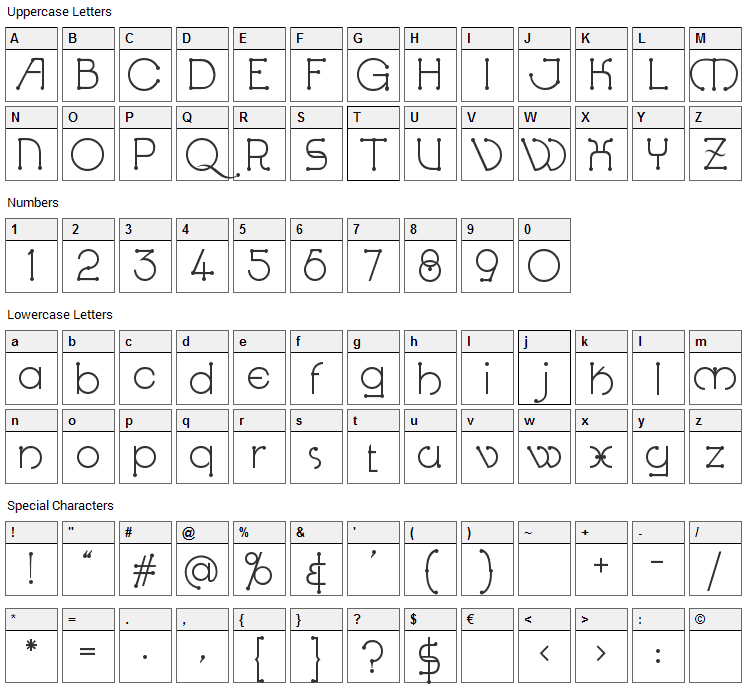
Kingthings Knobson Font
Font Name:Kingthings Knobson
Developer:Kingthings
Category:Fancy > Decorative
Having made Spirogyra, a decorative font, I found I liked the way the lower case set as text, so I made separate capitals to go with them, and Voila!, we have Kingthings Knobson... (if we're not very careful, Oh, too late - fonts spontaneously generate you know, like Elephants.
• Designer:Kevin King. Exeter. 2008